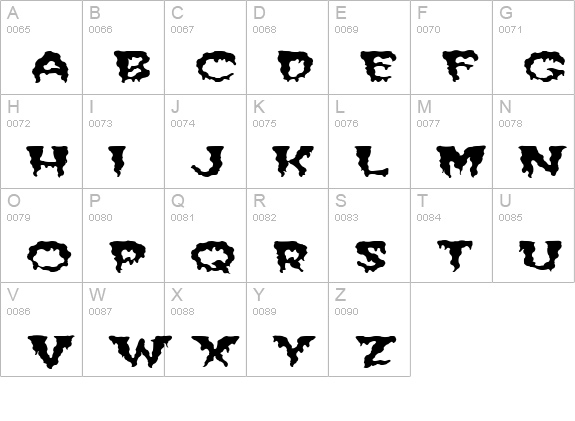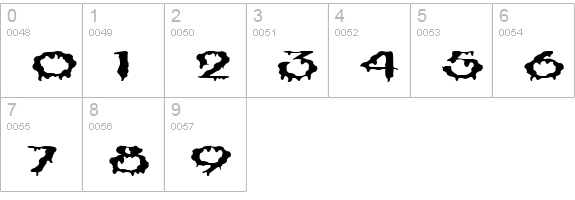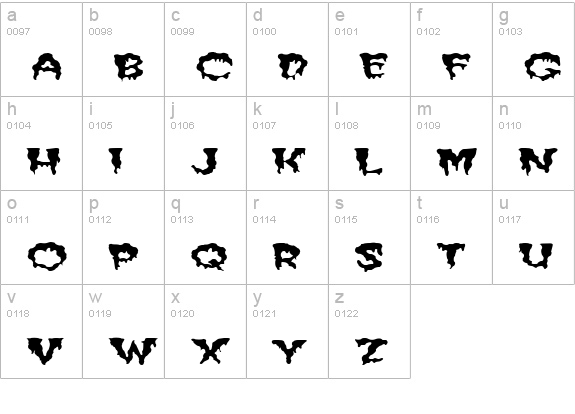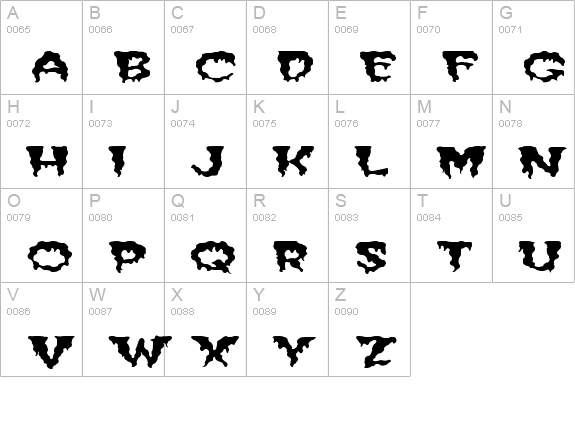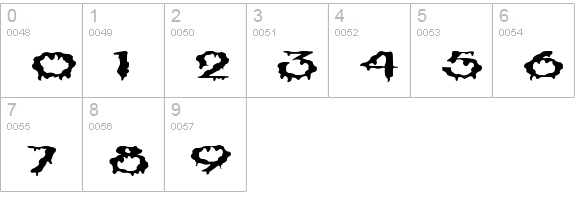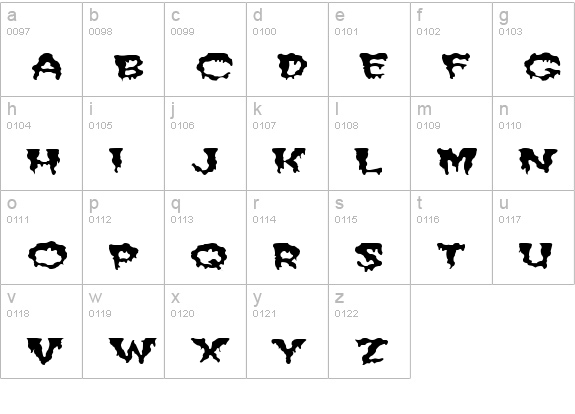
FZ UNIQUE 10 WAVEY EX Font Details
FZ UNIQUE 10 WAVEY EX font is a stunning display typeface that exudes creativity and innovation. With its unique wave-like design, this font is sure to make a bold statement in any project. Its distinctive style and modern appeal make it perfect for a variety of design applications, from branding to advertising to social media posts. What makes FZ UNIQUE 10 WAVEY EX font even more appealing is that it is available for free download at FontsMarket.com. This means that you can add this eye-catching font to your collection without any cost, making it a valuable asset for your design projects. Whether you're looking to add a touch of flair to your designs or make a memorable impression, FZ UNIQUE 10 WAVEY EX font is the perfect choice. Download it today and let your creativity flow!